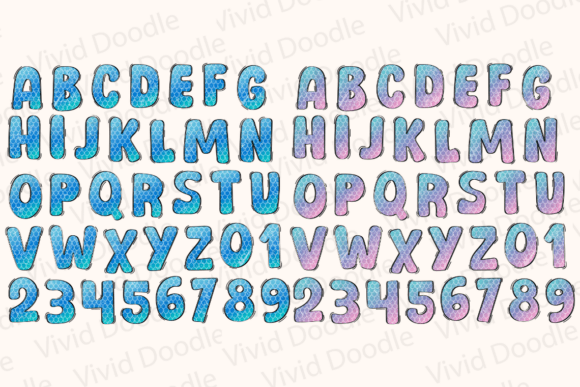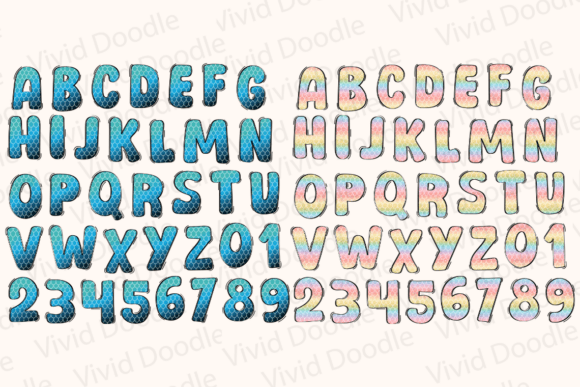
Mermaid Rainbow Font
Mermaid Rainbow Font is a magical and colorful typeface inspired by the enchanting world of mermaids and rainbows. This playful font combines vibrant rainbow hues with whimsical, flowing letters, perfect for adding a touch of fantasy to your designs. Whether you’re working on party invitations, school projects, greeting cards, or creative art, this font brings a splash of fun and imagination to any graphic design. Dive into creativity with the Mermaid Rainbow Font, perfect for under-the-sea themes, children’s decor, and any project that needs a burst of vibrant, dreamy colors.